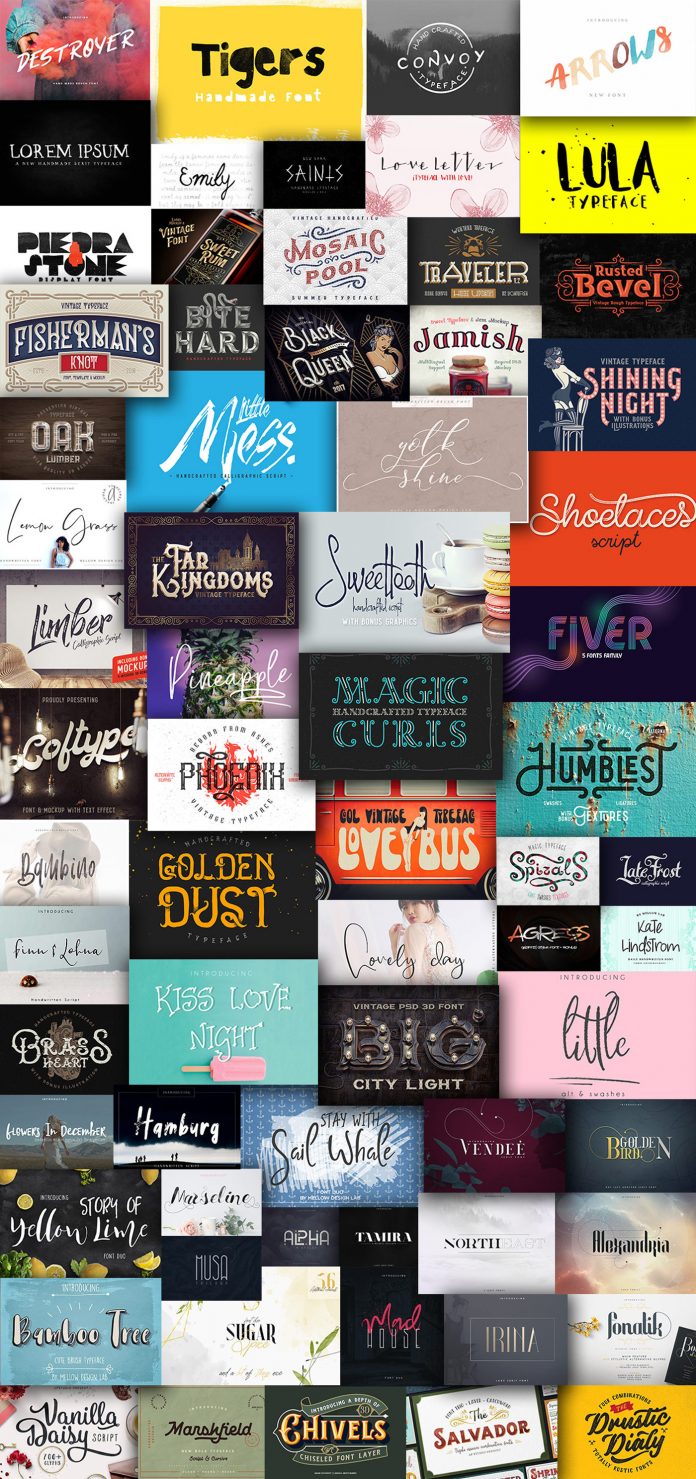
Stun the design world with this sensational serif fonts collection!
When it comes to design, knowing how to combine fonts is a big deal. Each font has a character. And there’s a corresponding font for every mood. One of the biggest families in typography is the serif. As a designer, it’s your responsibility to use them in the right way. A lot of people get confused between serif and sans serif. Their only difference is the small feet-like element found on serif fonts. These little feet are called serifs. Most serif fonts have a conventional or even conservative personality, and they are often used for designs that are more formal or official.
There are a lot of serif fonts available for various design concepts. If you’re looking for serif fonts that will blow your mind, Pixelo has currently the right thing for you: The Sensational Serif Fonts Bundle.
As already mentioned, this serif fonts bundle consists of 68 font families. It also has over 200 unique fonts. These serif typefaces are designed by expert font creators from all over the world. Each set in the bundle is specially-made to add a more elegant and formal effect to your work. Apart from the fabulous fonts, the bundle includes numerous bonus illustrations and vector graphics. There are alternate characters available as well. The bundle is a complete package useful for various digital and printed designs. It can be used for posters, greeting cards, logos, fashion labels, and menus, just to name a few. Like other Pixelo bundles, this special deal includes a commercial license. You will also have access to a lifetime download and 24/7 customer service. This vintage-inspired serif fonts bundle is originally valued at $914. If you get it from Pixelo today, you will receive a 96% discount. For 68 font families and 210 unique fonts, you only have to pay $39!
Where can you use Pixelo’s serif fonts bundle?
Serif fonts are the undisputed choice when it comes to printed designs. But more and more designers are using them in digital design too. As a designer, you need to ask yourself what concept will best suit your brief and reach your target market. A gorgeous serif font can be just the thing you need to enhance a printed logo or complement a web design. Serif fonts, while considered formal, can also be used in a more casual setting. The bundle is packed with sets that are quirky and pleasing to the eye. It’s really up to your concept and vision to see which of the sets will work best for your project.
Here are two types of design where a Serif font would be an ideal choice:
Logos: a serif font is just the thing a logo needs to stand out. They are the best design shorthand to communicate formality and convey history. And with
Printed work: in the past, serif fonts were chosen more for practicality than aesthetics. While this purpose still holds true, the design of these typefaces has evolved. They’re no longer just practical, but beautiful too. Take the Lorem Serif by Noe Araujo for instance. This handmade serif font was created using a paper canvas and a pen brush. It’s a design resource suitable for posters, invitation cards, and even product packaging or branding projects. The possibilities are endless. Those fonts are best for printed projects because they make it easier to read all the text. They help your eyes move horizontally along the page so the letters stand out on their own.